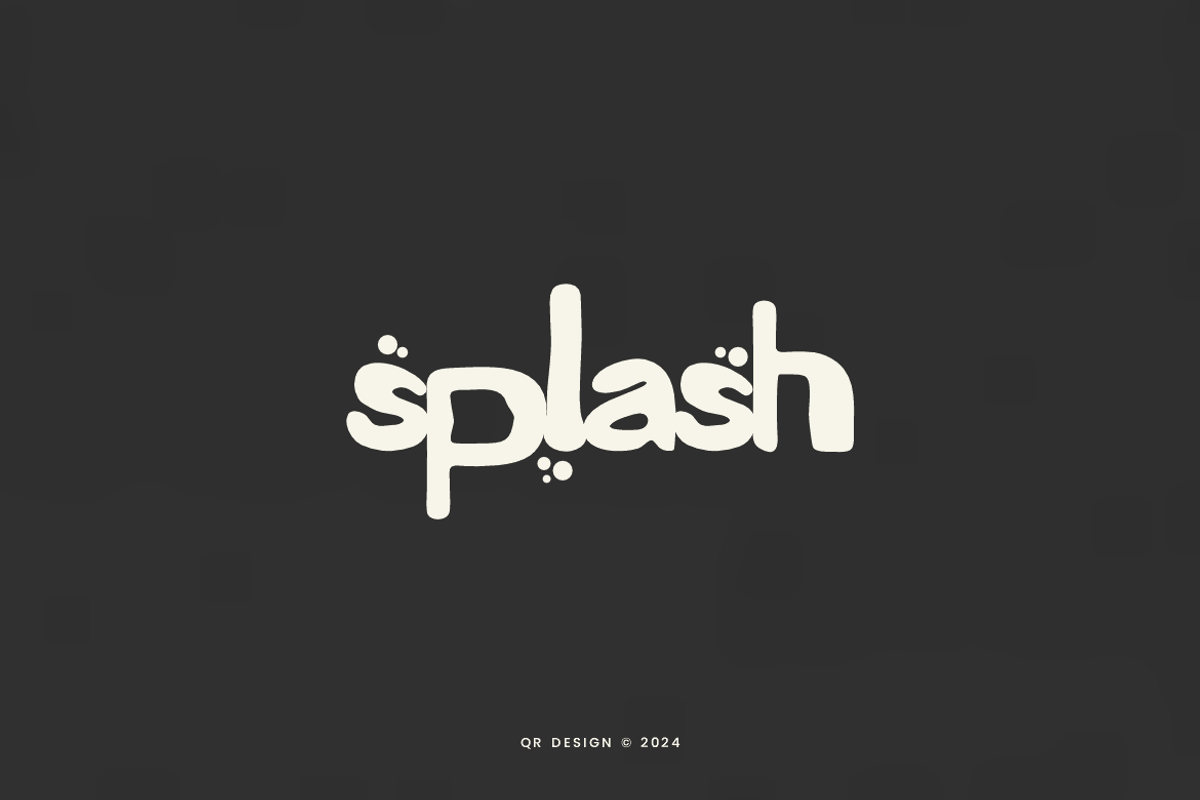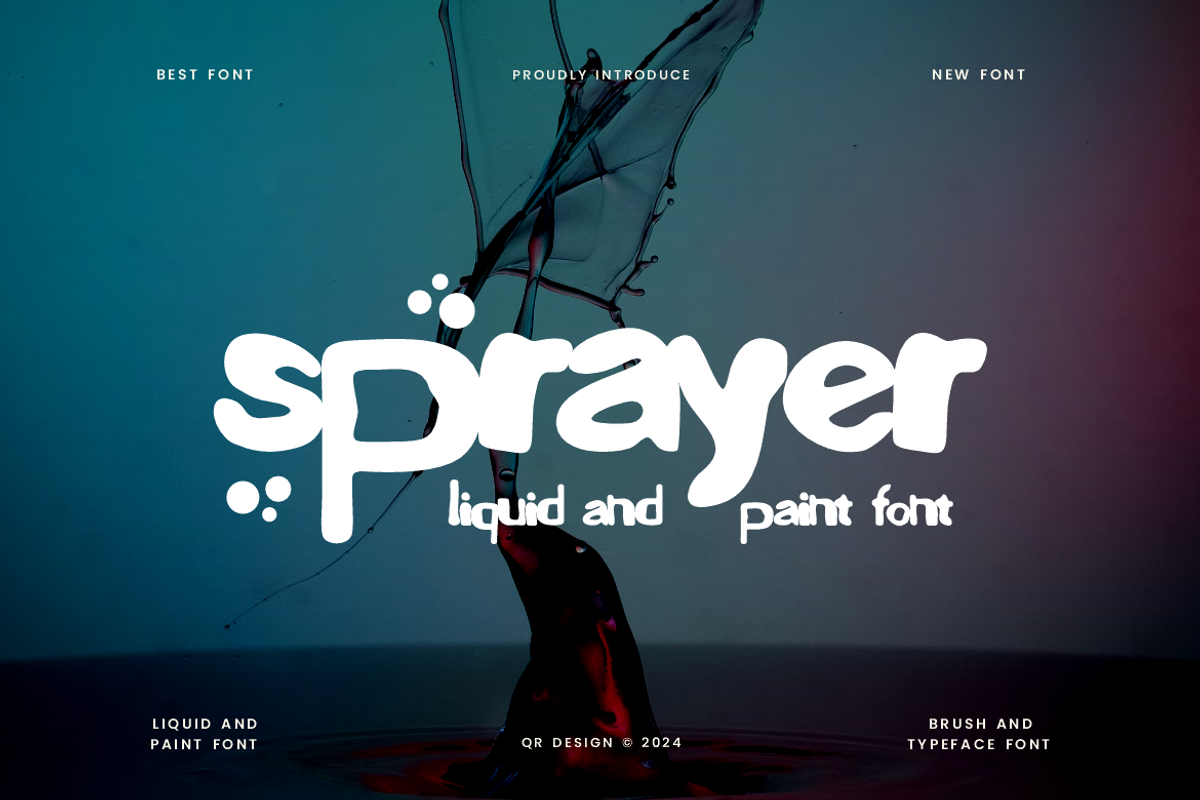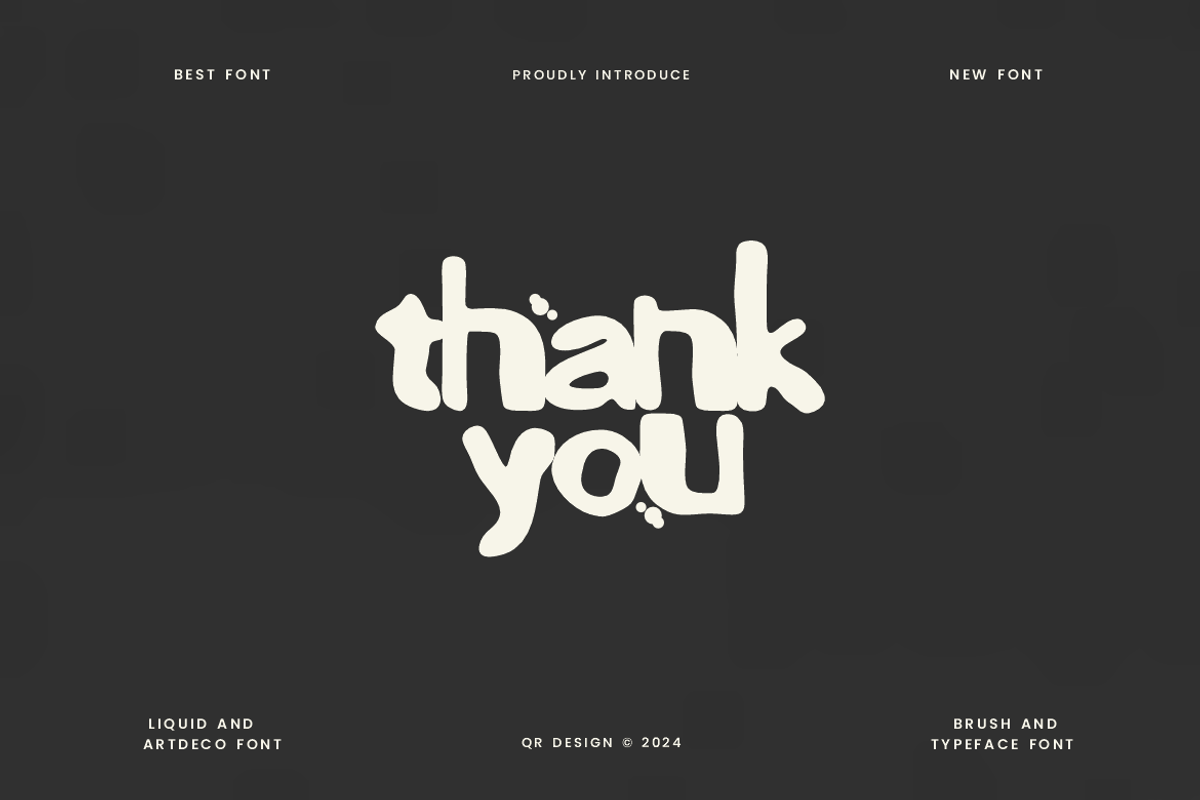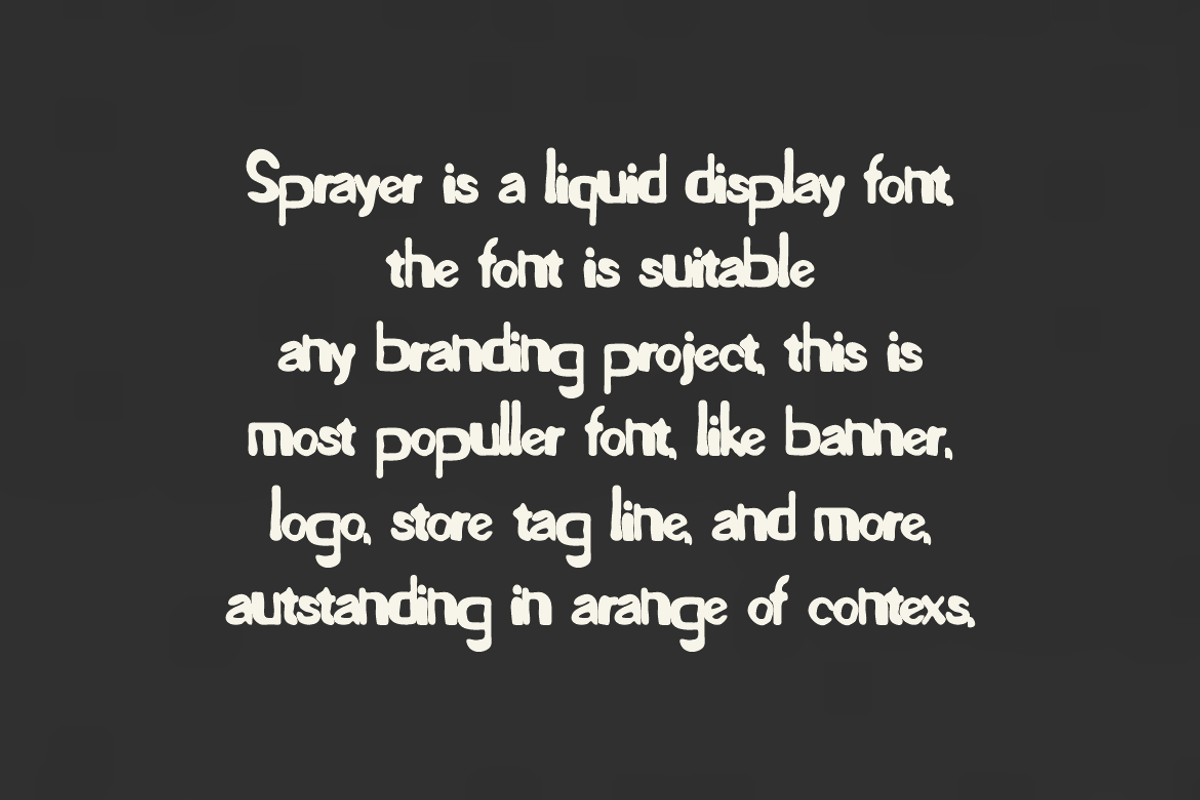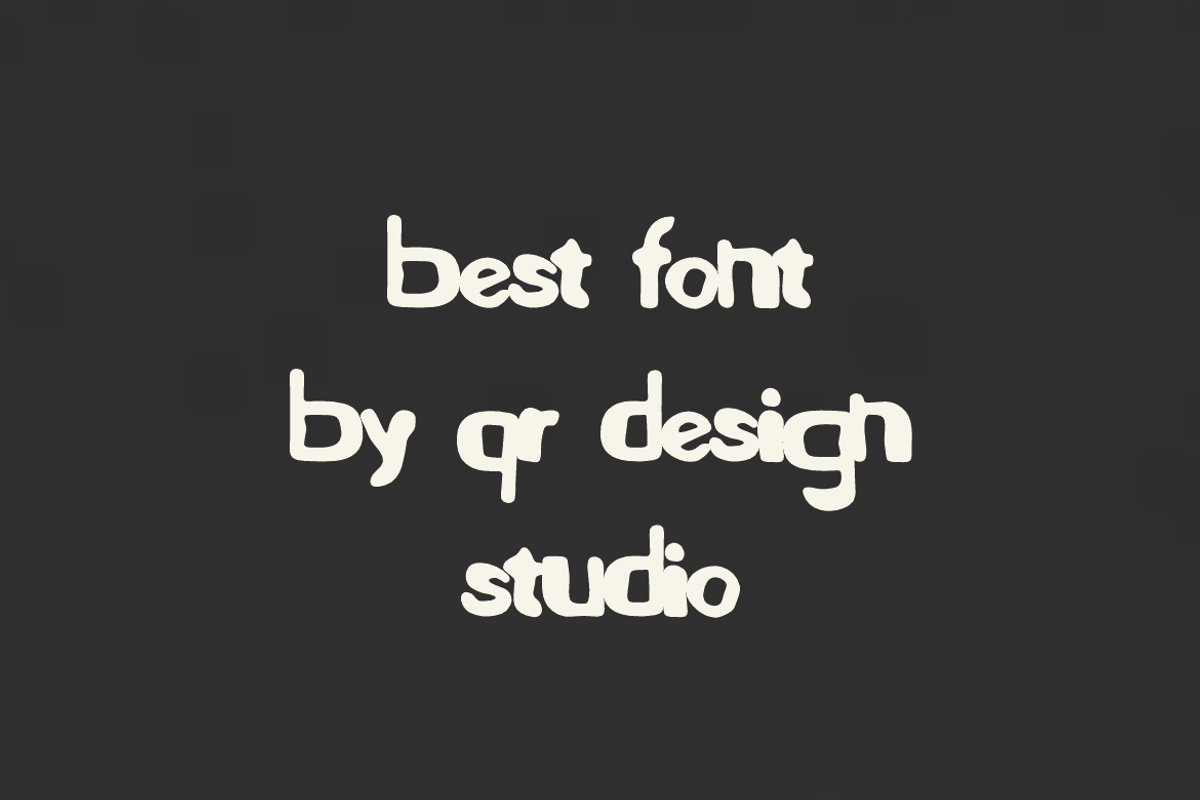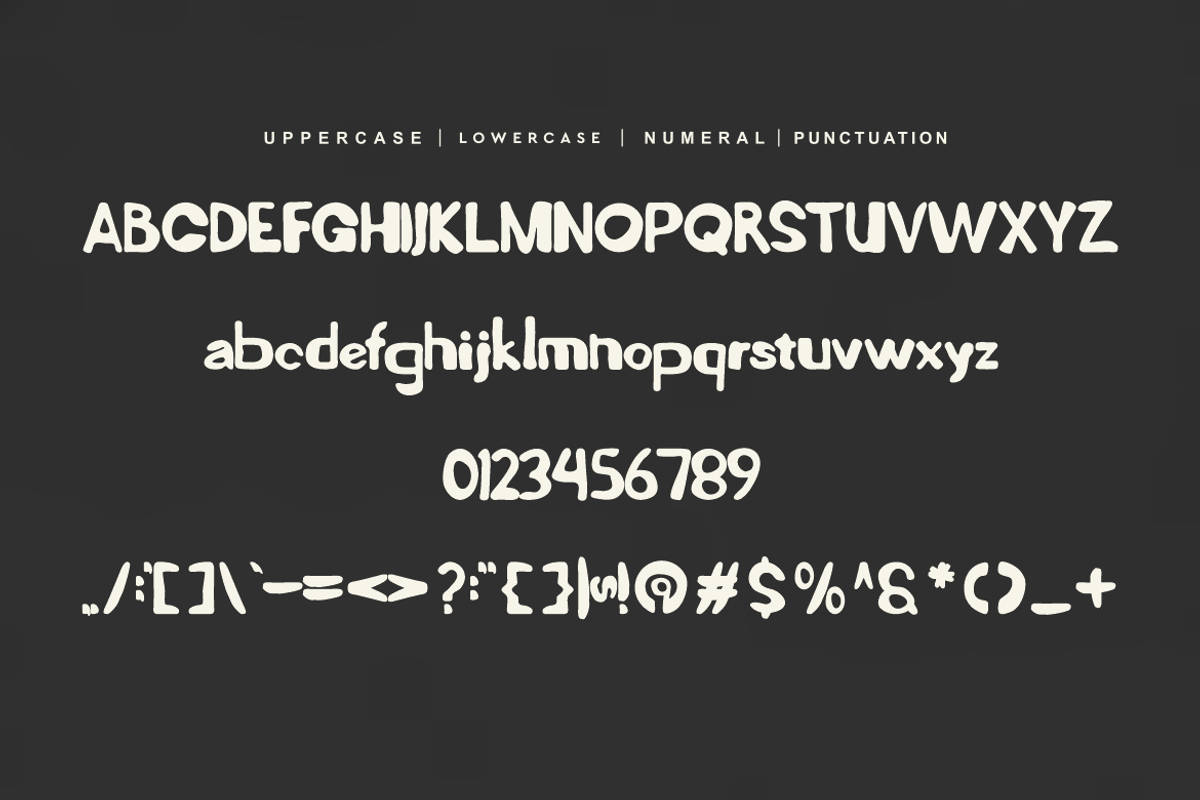
Sprayer - Paint & Liquid Font
Sprayer Font is a liquid and authentic display font. The font is suitable for any branding project like poster, logo, and many more. Outstanding in a wide range of contexts.